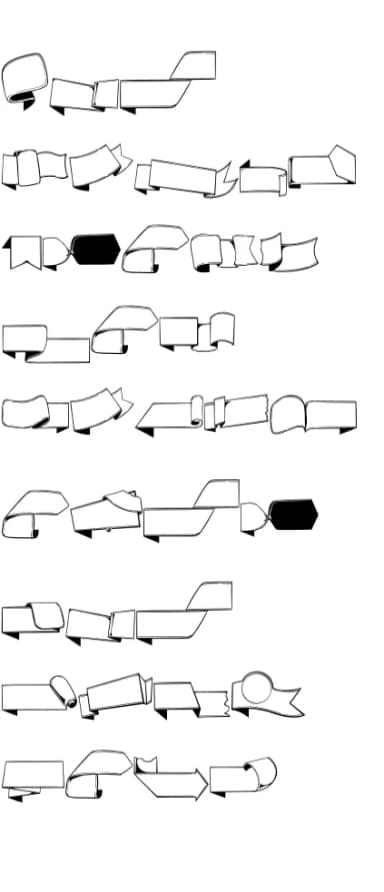
Infographic Ribbon is a dingbats collection of ornamental ribbon and banner shapes created by designer onoborgol. The letterforms offer decorative frames and accent elements with a hand-drawn quality that works across both analog sketches and digital layouts. Rather than emphasizing geometric precision, these forms feature organic curves and flowing lines that bring natural movement to your visual hierarchy and overall page flow.
The font excels at adding refined borders and ribbon elements to data visualization projects, certificate layouts, event posters, and social media graphics that require structural visual interest. These shapes work particularly well as framing within presentation decks, where you need clean visual breaks between sections without overwhelming your core content. Designers reach for Infographic Ribbon to add finishing touches to scrapbooking layouts, DIY event programs, custom product label borders, and editorial spreads where ornamental elements bridge text and imagery. The hand-drawn aesthetic keeps your designs from reading as templated or corporate, which matters when you want personality in your work.
Infographic Ribbon Font is a versatile dingbats font that works for both headings and body text. Pair it with a contrasting sans-serif or serif font to add visual interest and a clear distinction between titles and body copy.
Infographic Ribbon Font